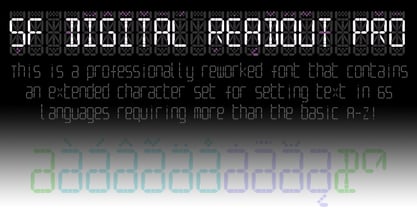
SF Digital Readout Pro
by CheapProFonts
The SF Digital Readout Pro Font Family was designed by Roger S. Nelsson, Derek Vogelpohl and published by CheapProFonts. SF Digital Readout Pro contains 1 styles. More about this family
No font collection would be complete without an LCD/Quartz font. I have divided some elements into more segments, so that they would be more flexible when creating "foreign" letterforms. Then I created a lowercase alphabet to match the existing uppercase letters! I have also redesigned those glyphs that did not slavishly follow the fixed elements. The result is a font were ALL glyphs are built from the defined elements - just like a proper LCD display! ALL fonts from CheapProFonts have very extensive language support: They contain some unusual diacritic letters (some of which are contained in the Latin Extended-B Unicode block) supporting: Cornish, Filipino (Tagalog), Guarani, Luxembourgian, Malagasy, Romanian, Ulithian and Welsh. They also contain all glyphs in the Latin Extended-A Unicode block (which among others cover the Central European and Baltic areas) supporting: Afrikaans, Belarusian (Lacinka), Bosnian, Catalan, Chichewa, Croatian, Czech, Dutch, Esperanto, Greenlandic, Hungarian, Kashubian, Kurdish (Kurmanji), Latvian, Lithuanian, Maltese, Maori, Polish, Saami (Inari), Saami (North), Serbian (latin), Slovak(ian), Slovene, Sorbian (Lower), Sorbian (Upper), Turkish and Turkmen. And they of course contain all the usual "western" glyphs supporting: Albanian, Basque, Breton, Chamorro, Danish, Estonian, Faroese, Finnish, French, Frisian, Galican, German, Icelandic, Indonesian, Irish (Gaelic), Italian, Northern Sotho, Norwegian, Occitan, Portuguese, Rhaeto-Romance, Sami (Lule), Sami (South), Scots (Gaelic), Spanish, Swedish, Tswana, Walloon and Yapese.
Designers: Roger S. Nelsson, Derek Vogelpohl
Foundry: CheapProFonts